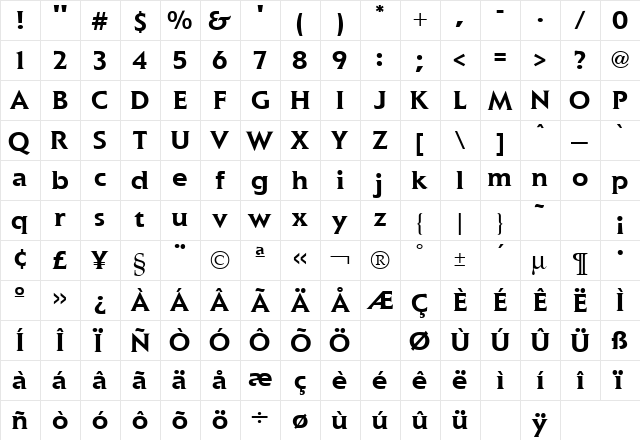
Elan Bold
Design Context for Elan Typeface
Elan offers clean, dependable letterforms without strong stylistic allegiance, making it a practical choice for designers who need flexibility. Its bold stroke weight gives it real presence on the page.
Pro Tip: Pair Elan with a font of contrasting weight or personality to build a more expressive typographic hierarchy.